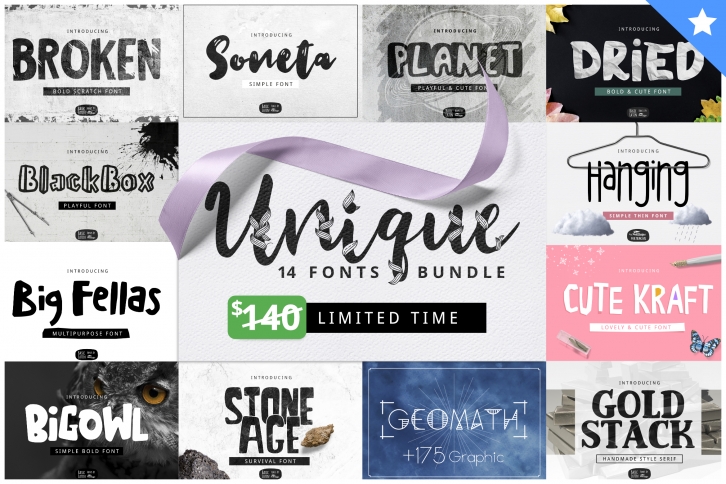
Unique Bundles by YandiDesigns is a great font that was designed by YandiDesigns. Imagine the amount of combinations you can create using this font! The archive is 14.94 MB and it was released on October 30, 2019. Unique Bundles by YandiDesigns looks beautiful on wedding invitations, greeting cards, logos, posters, labels, t-shirt designs, logos, business cards and is perfect for use in ink or watercolor works, fashion, magazines, packaging and food menus, children's books and more!